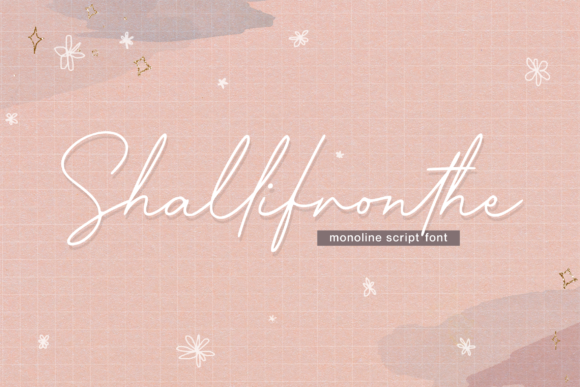
Embark on a typographic journey with Shallifronthe Font, a captivating script font family that weaves its magic through the realm of Latin text. Crafted with meticulous care by the skilled artisans at allouse.studio, Shallifronthe is not merely a font; it's an expression of creativity, a stroke of genius that brings life to your digital designs.
Step into a world where elegance and charm dance harmoniously, where every letter is a work of art, and every word a masterpiece. Shallifronthe's fluid strokes and enchanting curves invite you to explore the depths of artistic expression, transforming your digital creations into captivating visual experiences.
With its natural, stylish demeanor, Shallifronthe effortlessly adapts to a myriad of projects, enhancing their allure and leaving an indelible mark on your audience. Whether you're crafting heartfelt wedding invitations, expressing gratitude with personalized thank-you cards, capturing the essence of life's moments in heartfelt quotes, or extending warm greetings with handcrafted greeting cards, Shallifronthe is your steadfast companion, guiding you towards typographic excellence.
Unleash your creativity and let Shallifronthe be the cornerstone of your brand's identity. Design logos that exude sophistication and professionalism, create business cards that leave a lasting impression, and craft any design that demands a touch of individuality. Shallifronthe is the key to unlocking your design potential, transforming ordinary text into extraordinary expressions of art.
In a world saturated with digital noise, Shallifronthe is your secret weapon, cutting through the clutter and captivating your audience with its timeless beauty. Its versatility extends beyond the confines of traditional design, making it the perfect choice for social media posts, online advertisements, and digital marketing campaigns. Imagine your words taking flight, adorned with Shallifronthe's graceful strokes, captivating your audience with their elegance and charm.
Take the first step towards typographic greatness and embrace Shallifronthe Font today. Let its enchanting allure elevate your designs to new heights, leaving an indelible mark on the digital landscape. With Shallifronthe by your side, you'll discover a world of creative possibilities, transforming your digital creations into captivating masterpieces that resonate with your audience.